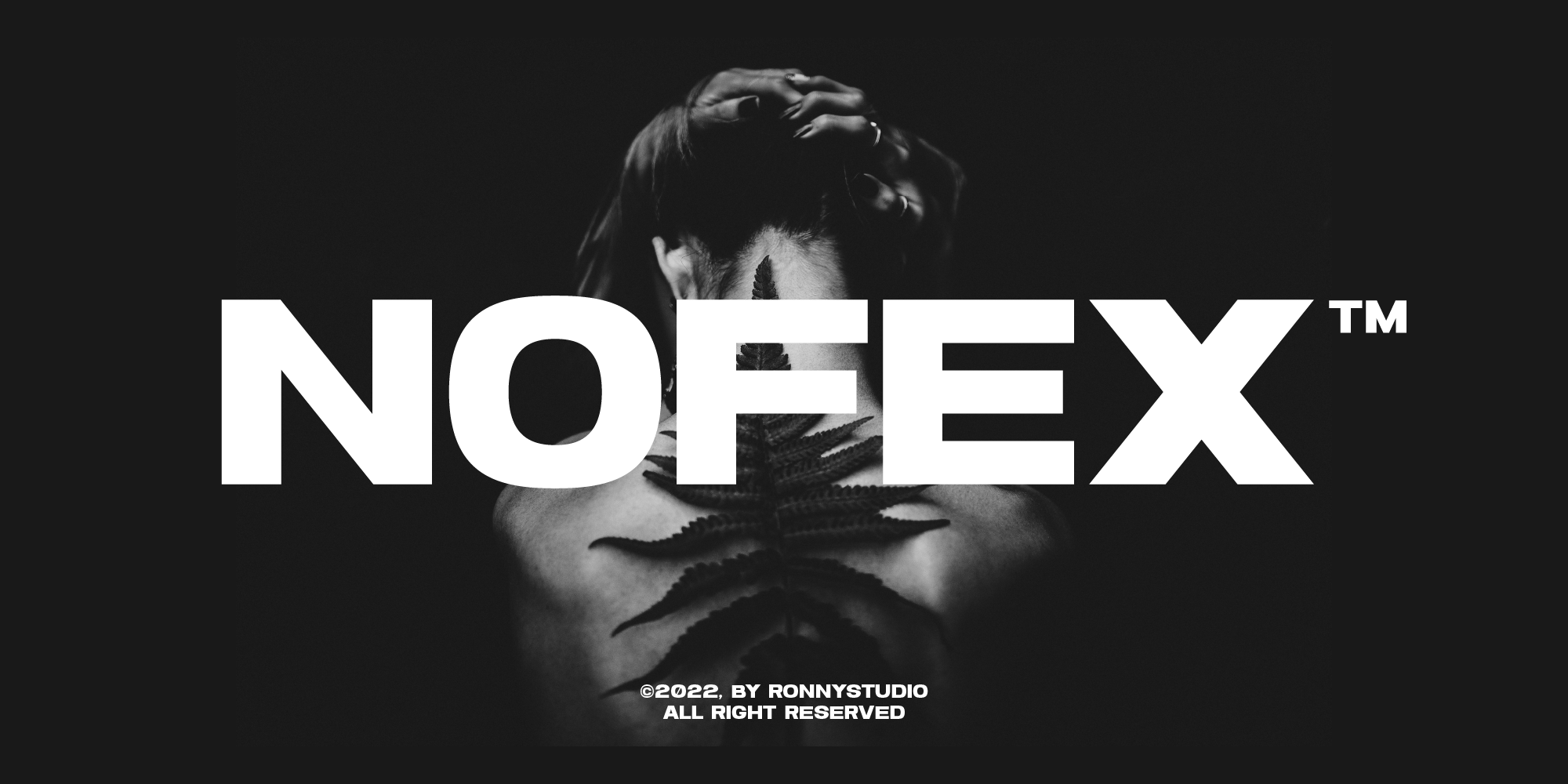
Nofex Font is perfect for modern branding projects, logo designs, website headers, digital marketing materials, social media graphics, poster designs, book covers, packaging designs, and contemporary advertising campaigns.
What makes Nofex Font exciting is its perfect balance between contemporary aesthetics and professional readability. This versatile typeface combines clean geometric lines with subtle character variations that create visual interest without compromising legibility. The font's modern appeal makes it an excellent choice for brands looking to establish a fresh, innovative identity in today's competitive marketplace.
Nofex Font family includes multiple weights and styles: Regular, Bold, Light, Medium, Black, and Italic variations. Each weight maintains the font's distinctive character while providing flexibility for various design applications and hierarchical text structures.
Typography enthusiasts and designers worldwide appreciate Nofex Font Free Download for its exceptional versatility and contemporary appeal. This remarkable typeface has gained popularity among creative professionals who seek fonts that deliver both aesthetic excellence and functional performance. Whether you're working on corporate branding, editorial design, or digital interfaces, this font adapts seamlessly to different design contexts while maintaining its unique personality.
The design philosophy behind Nofex Font emphasizes clarity and modern sophistication. Its letterforms feature carefully crafted proportions that ensure excellent readability across various sizes and mediums. The font's geometric foundation provides stability and professionalism, while subtle humanist touches add warmth and approachability to the overall design.
Professional designers choose Nofex Font for projects requiring a contemporary yet timeless aesthetic. The font's clean structure makes it ideal for minimalist designs, while its character variations provide enough personality for more expressive applications. This balance makes it particularly suitable for tech companies, creative agencies, fashion brands, and modern lifestyle products.
The technical execution of Nofex Font demonstrates attention to detail in every aspect of its design. Kerning pairs are meticulously adjusted to ensure smooth text flow, while OpenType features enhance the font's functionality for professional typography applications. The font supports extensive language coverage, making it suitable for international projects and multilingual designs.